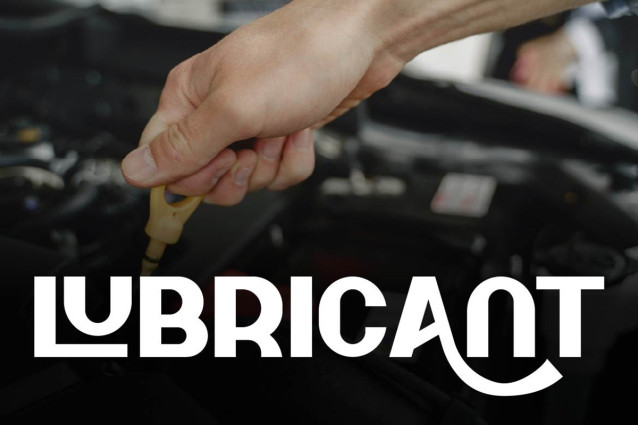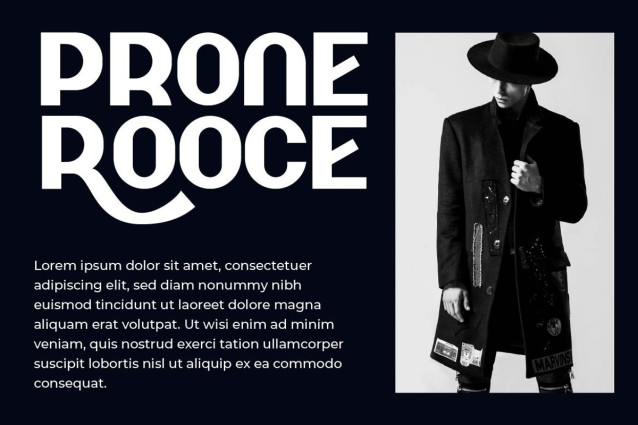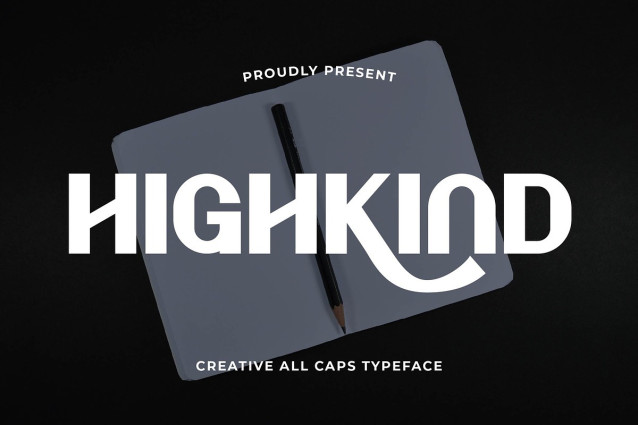
Highkind Font
Highkind Font is a creative display sans serif font crafted for bold expression and visual impact. With strong geometric shapes, playful proportions, and eye-catching letterforms, Highkind stands at the intersection of modern design and artistic flair. It’s made to break the monotony — perfect for headlines, posters, packaging, album covers, branding, and any project that demands attention.
This fonts are great for product logo,wedding card logo, clothing brand logo, Vintage design and much more.